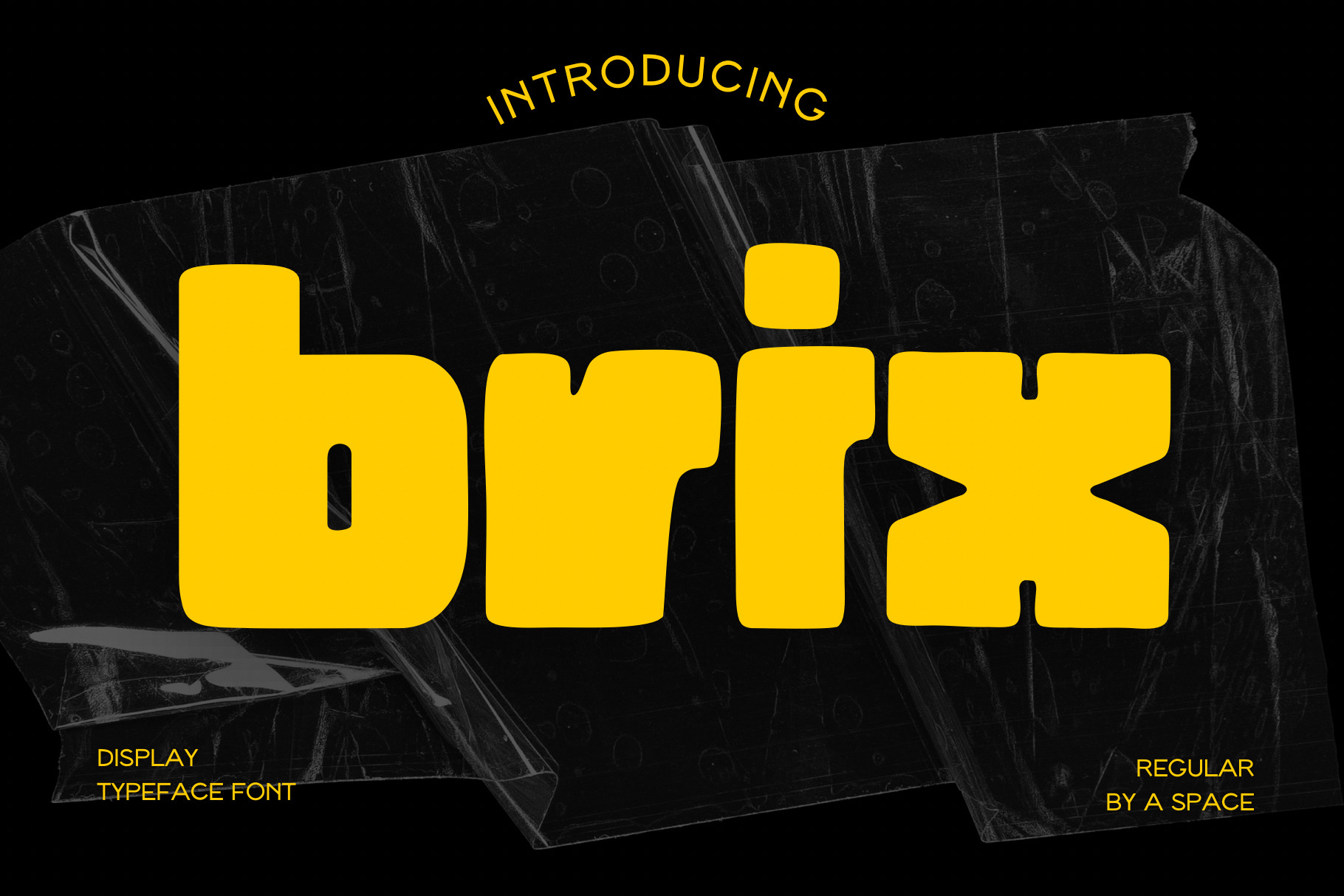
Brix - Display Font
Brix Font is a unique bold font. This font can be used for anything such as shirt designs, cards, art, quotes, social media and so much more!